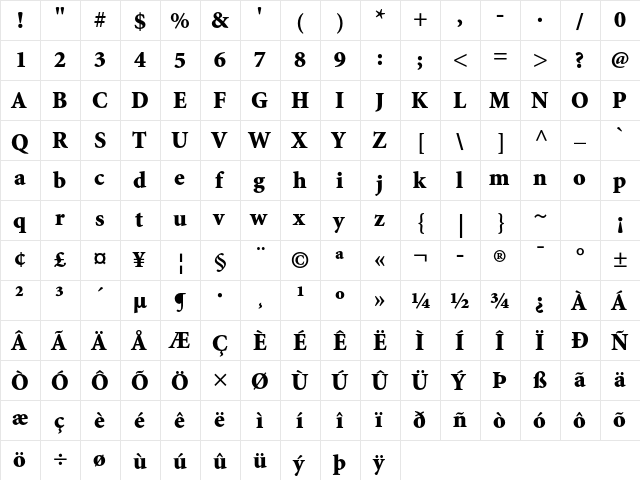
Minion Std Black
| Designer | Robert Slimbach |
Design Context for Minion Std Typeface
Minion Std is a composed and adaptable typeface that performs quietly and consistently across a wide range of design contexts.